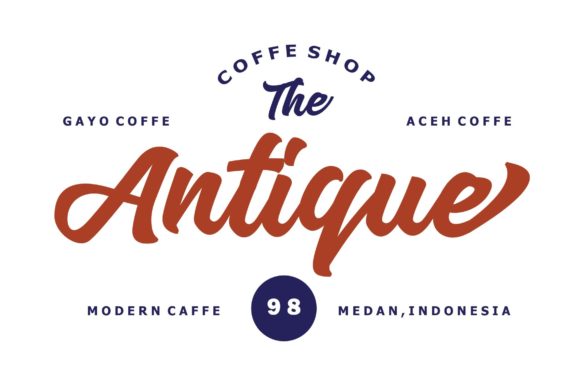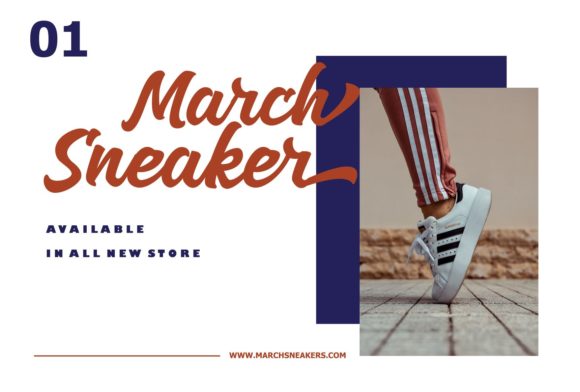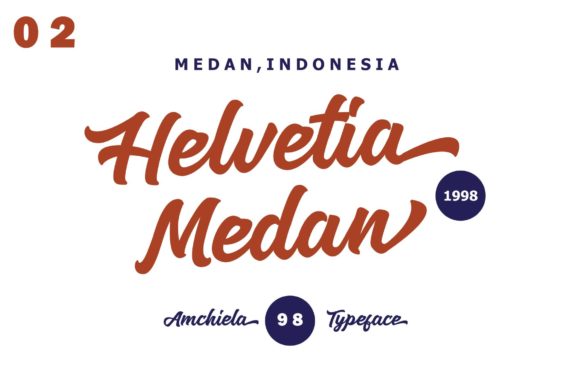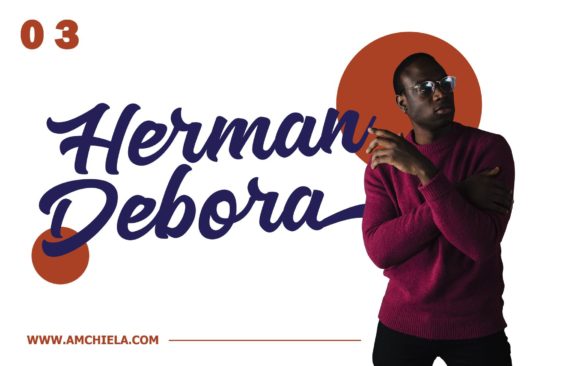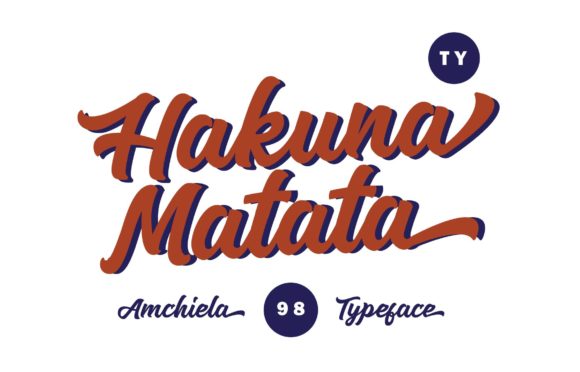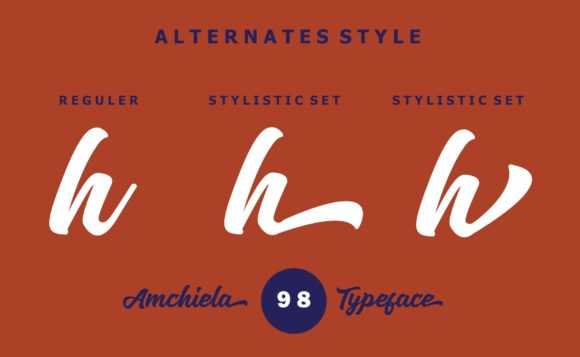
Introducing Amchiela Font: A Unique and Beautiful Handwritten Font
Amchiela is a unique and beautiful handwritten font with a bold and authentic charm. Designed to add a personal touch to any design project, Amchiela Font is perfect for crafters, designers, and anyone looking to add a touch of elegance and sophistication to their work.
What Makes Amchiela Font Special?
Amchiela Font stands out from other fonts due to its distinctive handwritten style, which exudes a sense of warmth and personality. The font’s bold and authentic charm makes it ideal for use in a variety of design projects, from branding and advertising to packaging and stationery.
One of the key features that sets Amchiela Font apart is its unique character set. Each letter is carefully crafted to ensure that the font has a natural, handwritten feel that is both elegant and approachable. The font’s attention to detail and precise lettering make it perfect for use in designs where clarity and legibility are essential.
Uses for Amchiela Font
Amchiela Font is an incredibly versatile font that can be used in a wide range of design projects. Here are just a few examples of how you can use Amchiela Font to add a touch of elegance and sophistication to your work:
- Branding and Advertising: Use Amchiela Font to create eye-catching logos, advertisements, and marketing materials that stand out from the crowd.
- Packaging Design: Add a touch of elegance and sophistication to your product packaging with Amchiela Font.
- Stationery and Invitations: Use Amchiela Font to create beautiful stationery, invitations, and greeting cards that are sure to impress.
- Digital Design: Amchiela Font is perfect for use in digital designs, such as website headers, social media graphics, and email newsletters.
Why Designers and Crafters Love Amchiela Font
Designers and crafters love Amchiela Font for its unique and beautiful handwritten style, which adds a personal touch to any design project. Here are just a few reasons why Amchiela Font has become a favorite among designers and crafters:
- Unique Style: Amchiela Font has a distinctive style that sets it apart from other fonts.
- Elegant and Sophisticated: Amchiela Font adds a touch of elegance and sophistication to any design project.
- Easy to Read: Amchiela Font is clear and legible, making it perfect for use in designs where clarity is essential.
- Versatile: Amchiela Font can be used in a wide range of design projects, from branding and advertising to packaging and stationery.
Tips for Using Amchiela Font
Here are a few tips for using Amchiela Font in your design projects:
- Use it Sparingly: Amchiela Font is a bold and attention-grabbing font, so use it sparingly to avoid overwhelming your design.
- Pair it with Other Fonts: Amchiela Font pairs well with other fonts, so experiment with different font combinations to find the perfect look for your design.
- Experiment with Colors: Amchiela Font looks great in a variety of colors, so experiment with different colors to find the perfect look for your design.
Amchiela Font is a unique and beautiful handwritten font with a bold and authentic charm. With its distinctive style, elegant and sophisticated feel, and versatility, Amchiela Font is perfect for designers and crafters looking to add a personal touch to their design projects. Whether you’re creating branding and advertising materials, packaging, stationery, or digital designs, Amchiela Font is sure to impress.